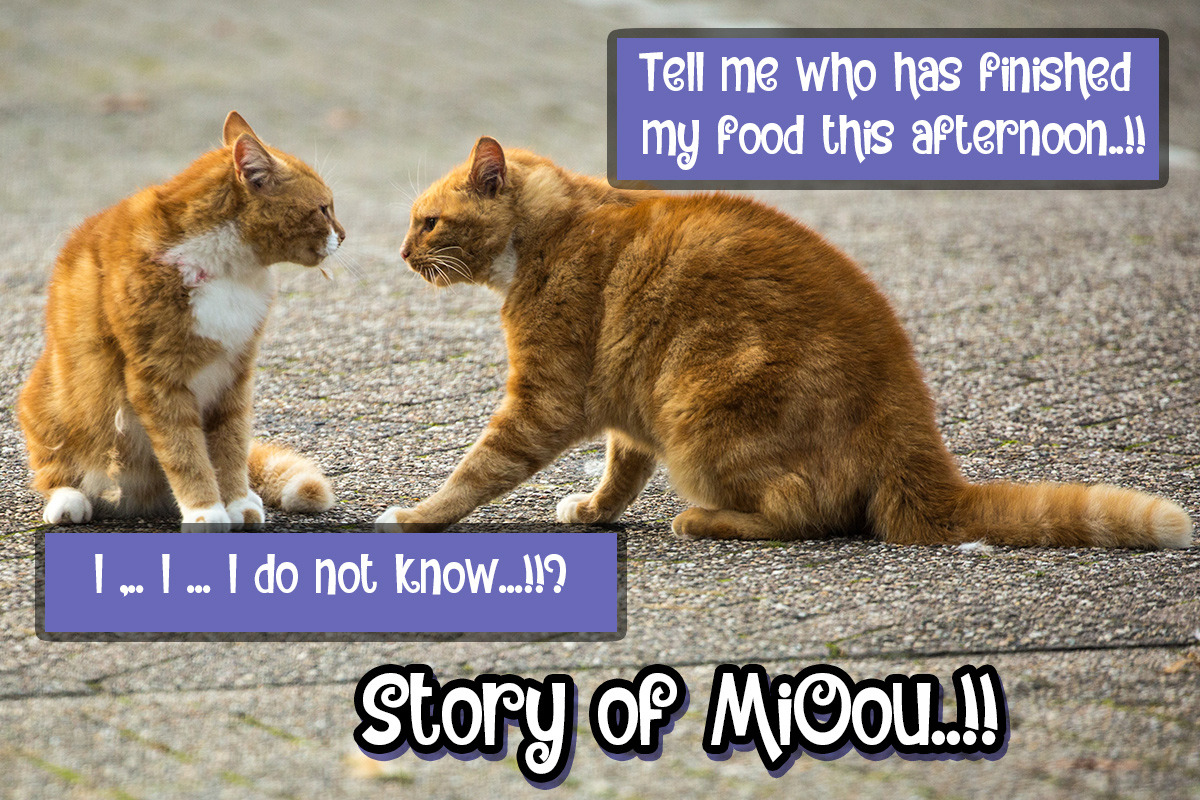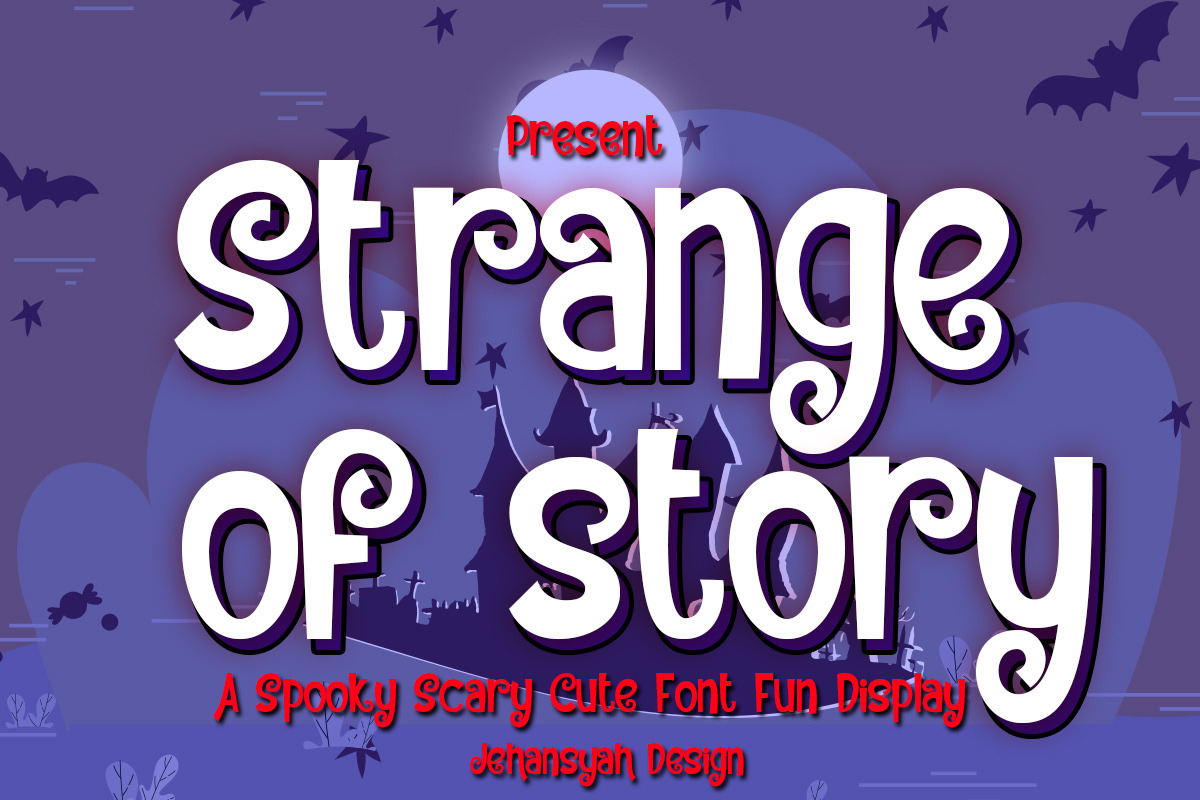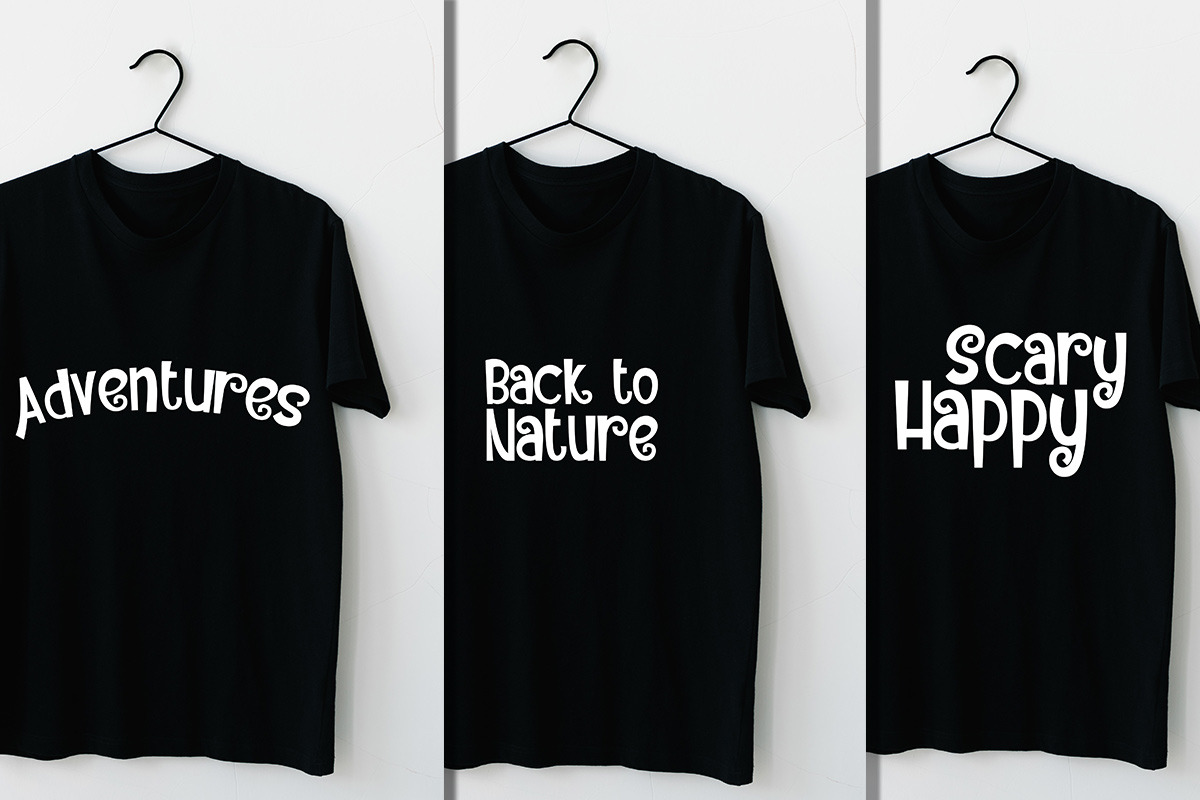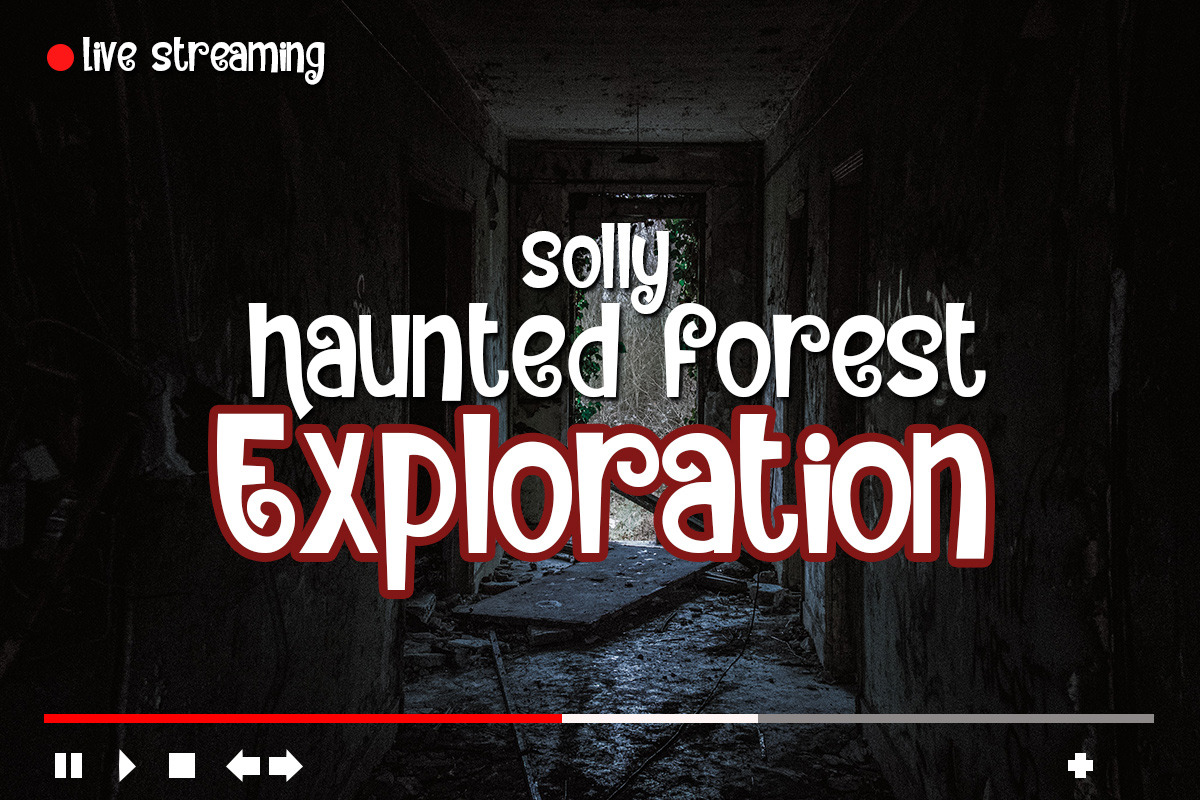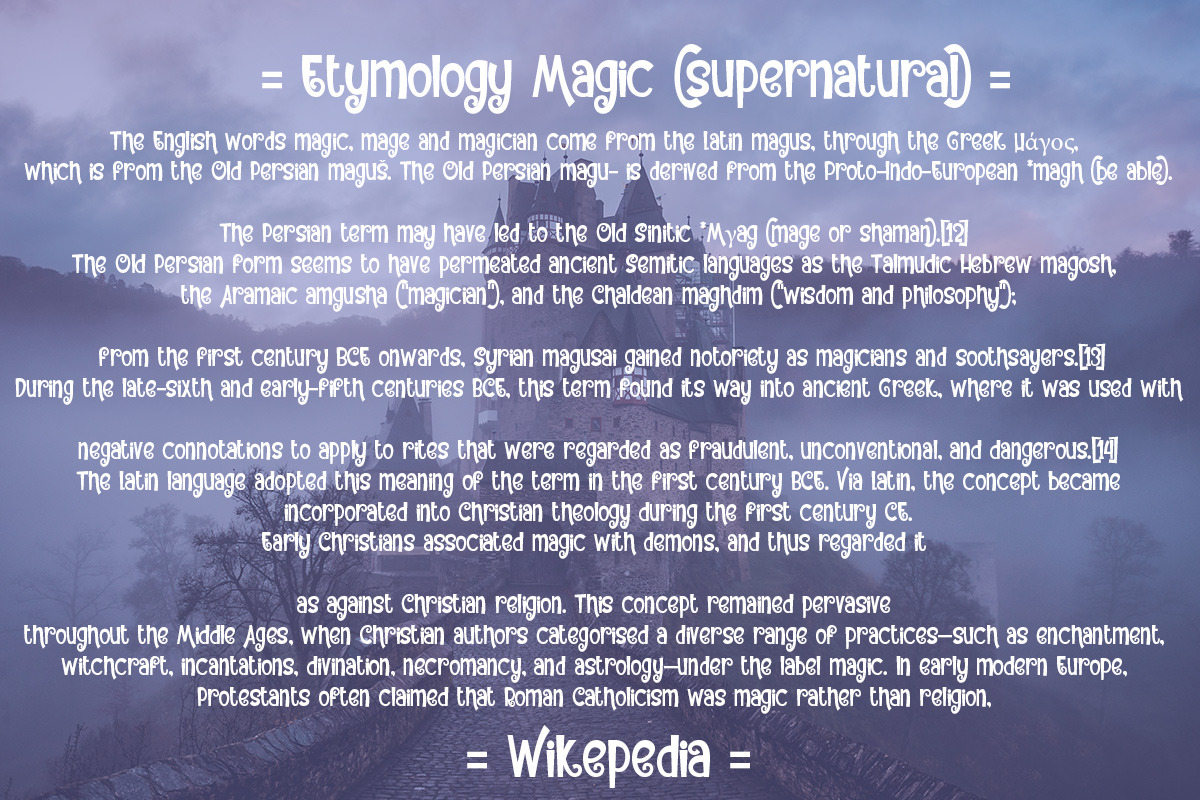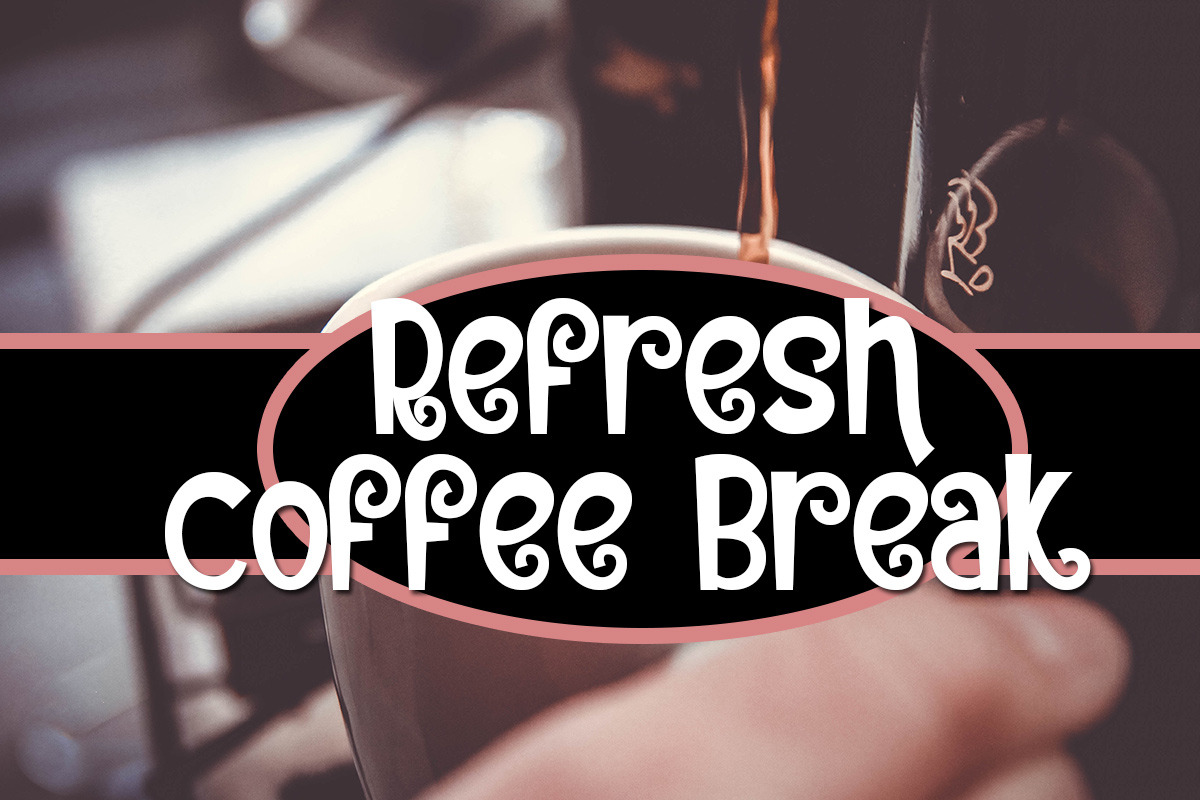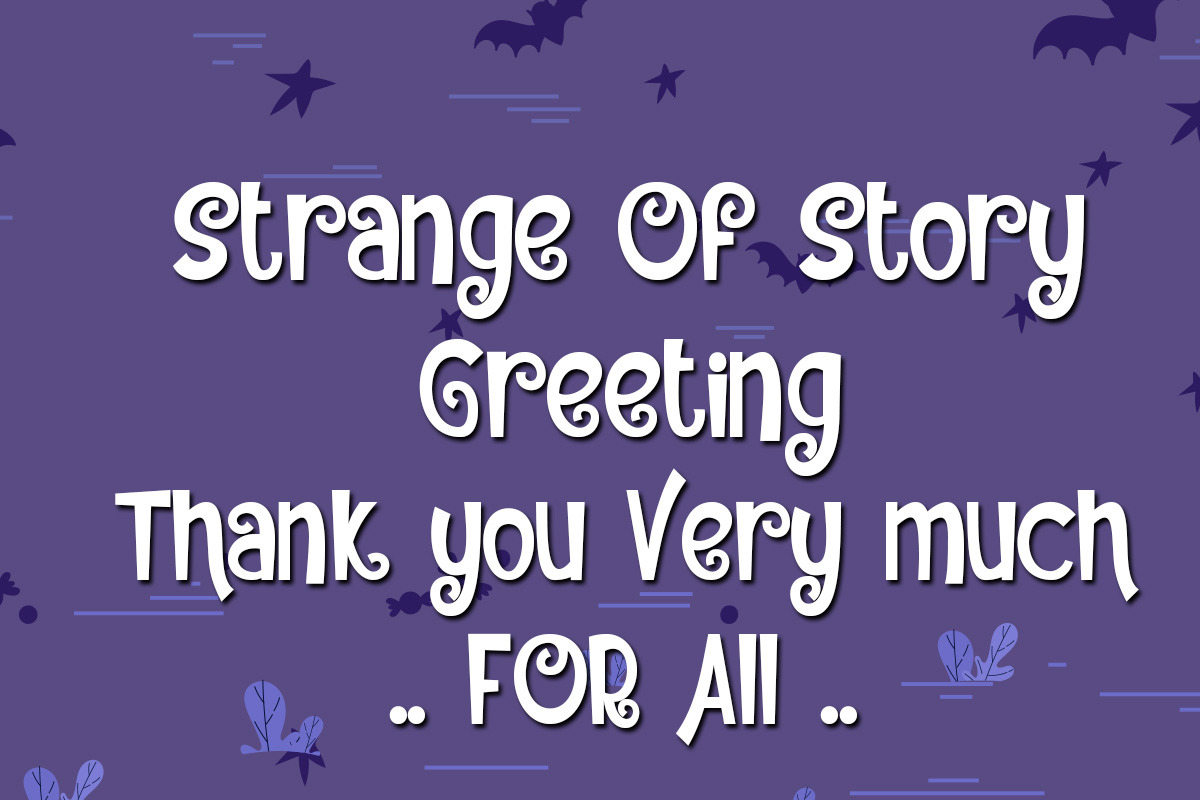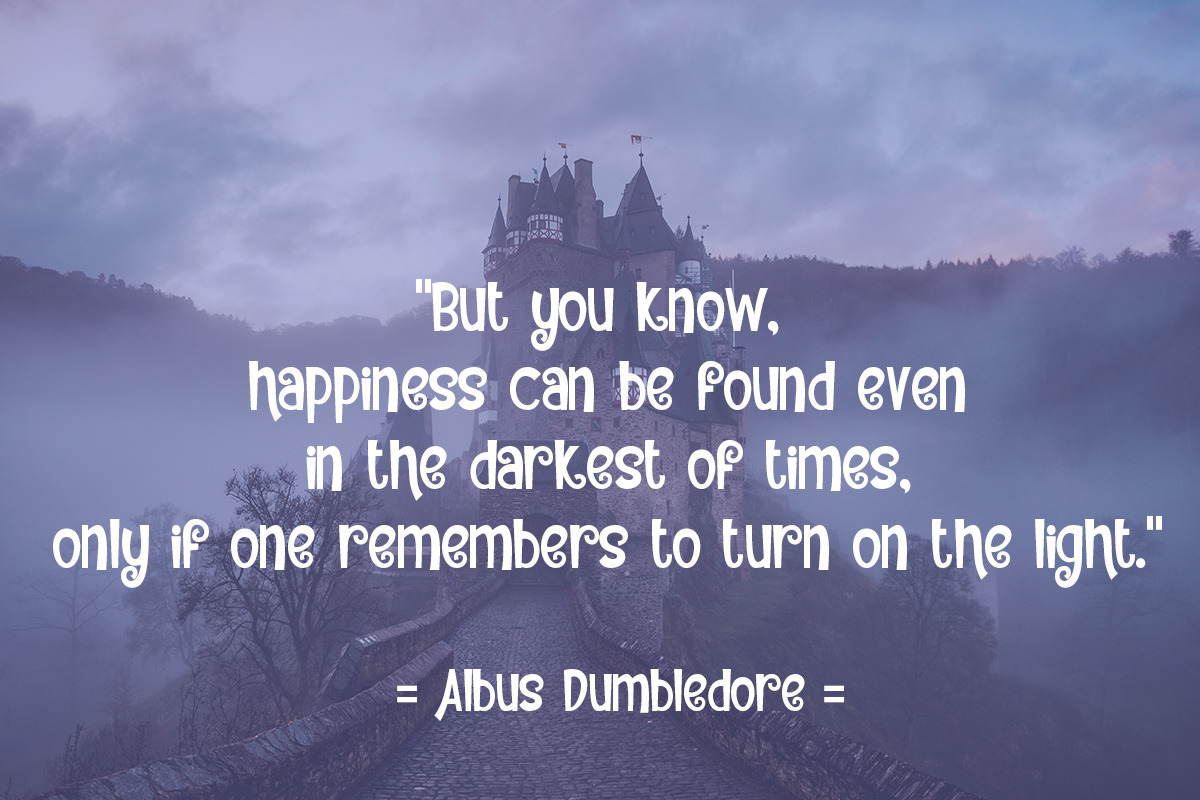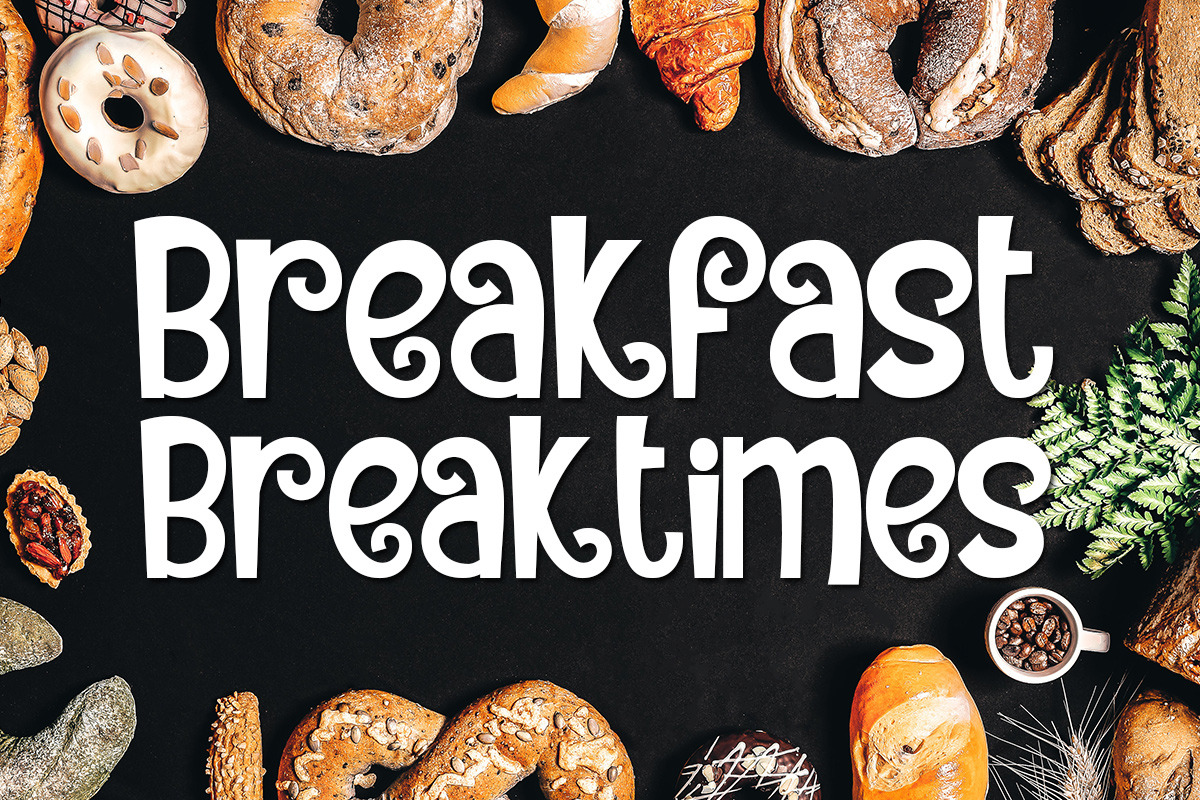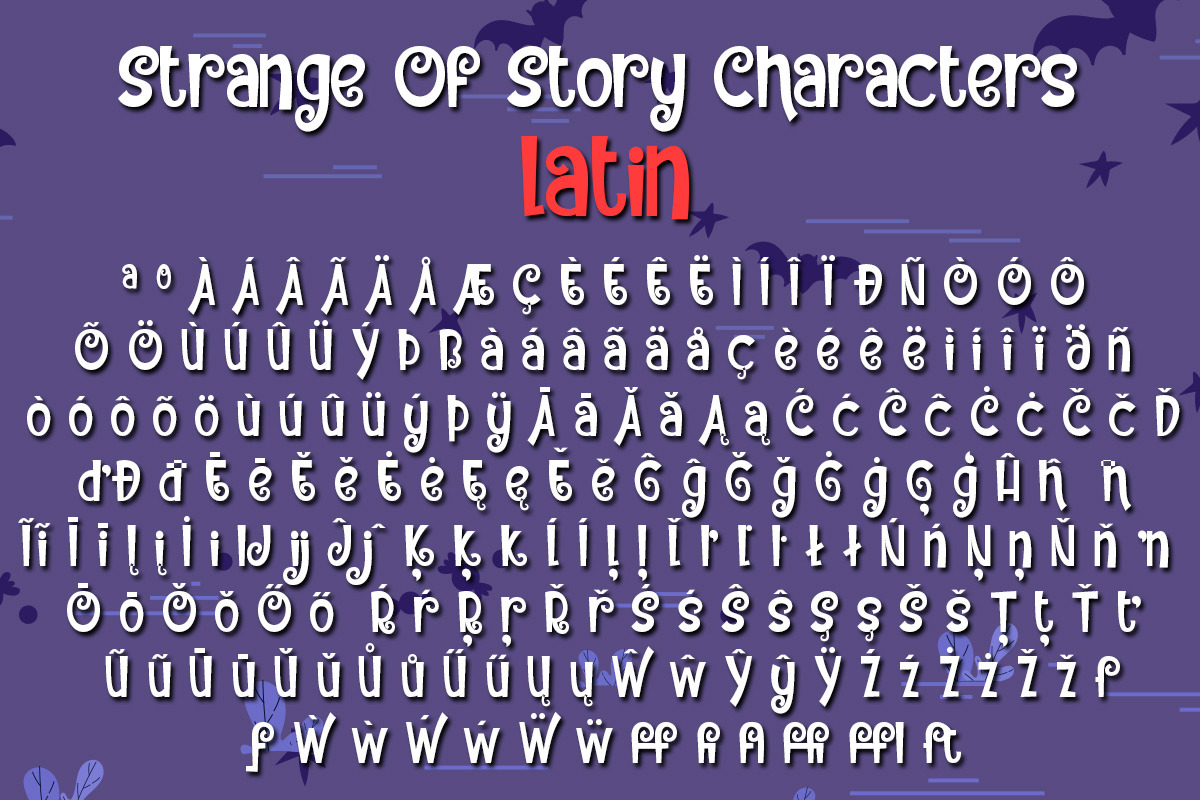
Strange of story
Strange of story This is a font with a spooky theme but still has a funny feel, so it will give a friendly impression to any design that wants to appear magical
Strange of story Inspired by the usual children's fonts, this time we combined it with a touch of cute ghosts and still maintains a thick childlike impression include